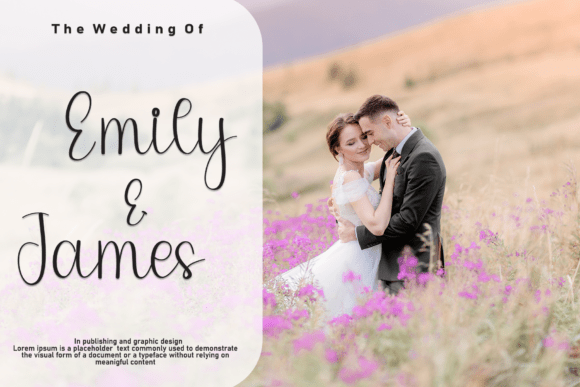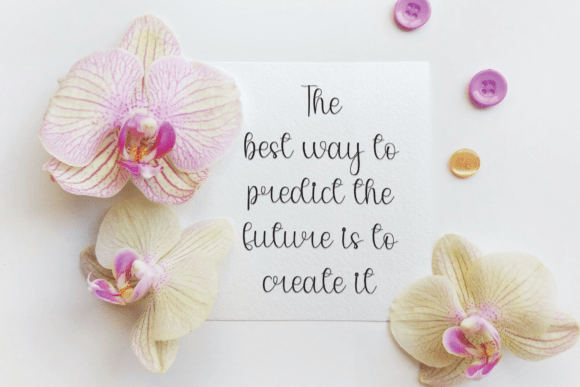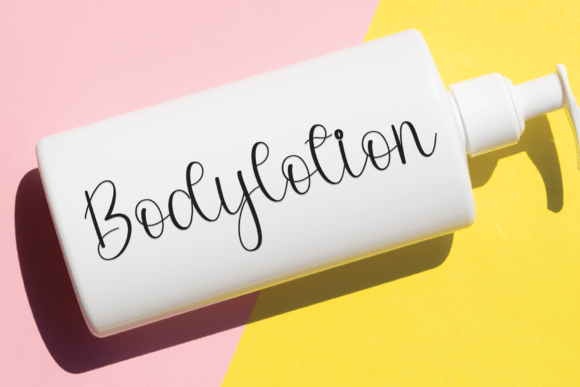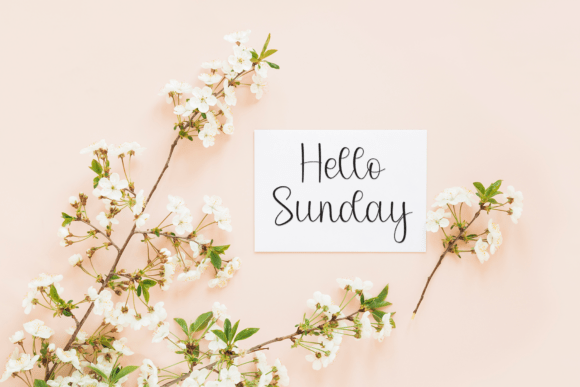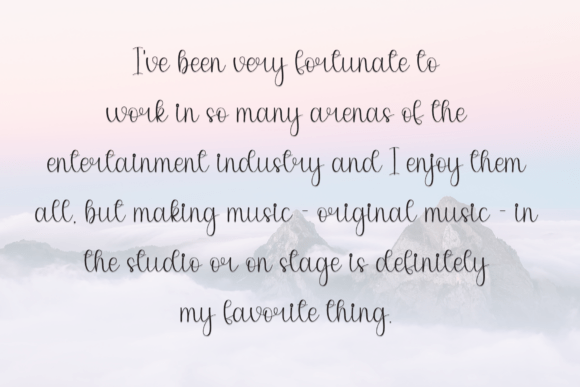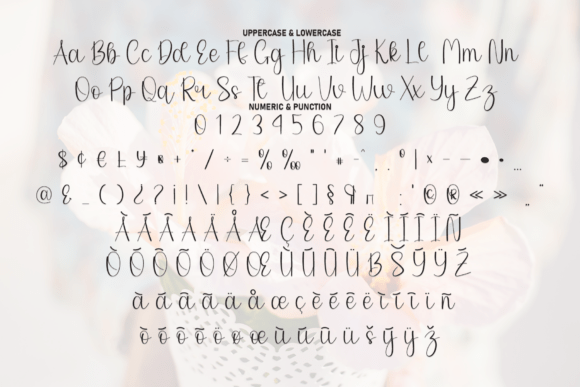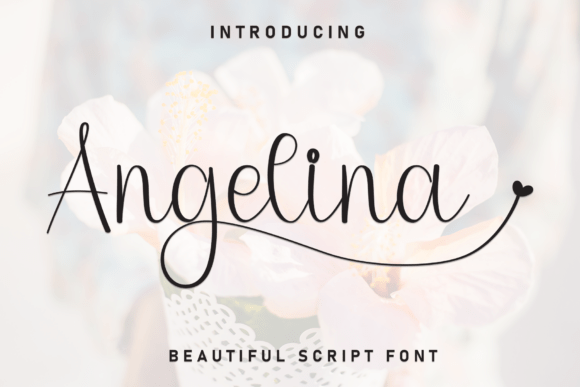
Introducing Angelina Font: Elevate Your Designs with Fresh Elegance and Delicate Charm
Are you searching for a font that embodies the essence of renewal and sophistication? Look no further than Angelina, a stylish handwritten script font that radiates fresh elegance and delicate charm. With its flowing strokes and graceful curves, Angelina is the perfect addition to any design project, from invitations and branding to seasonal designs and more.
The Beauty of Angelina Font
Angelina is more than just a font – it’s an experience. Its elegant, cursive script is reminiscent of handwritten calligraphy, adding a soft, personal touch to any project. The flowing strokes and delicate curves of Angelina evoke a sense of renewal, making it perfect for designs that require a fresh and uplifting feel.
Whether you’re a designer, crafter, or DIY enthusiast, Angelina font is an excellent choice for a variety of projects. Here are just a few ways you can use Angelina to elevate your designs:
- Invitations: Create beautiful, one-of-a-kind invitations for weddings, baby showers, and other special occasions with Angelina font.
- Branding: Add a touch of elegance and sophistication to your brand’s identity with Angelina font, perfect for logos, business cards, and more.
- Seasonal Designs: Use Angelina font to create stunning seasonal designs, such as Christmas cards, Easter eggs, and Halloween decorations.
- Stationery: Create lovely stationery, including notebooks, journals, and greeting cards, with Angelina font.
Key Features of Angelina Font
So, what makes Angelina font so special? Here are some of its key features:
- Handwritten Script: Angelina font features a beautiful, handwritten script that’s perfect for adding a personal touch to your designs.
- Flowing Strokes: The flowing strokes of Angelina font give it a sense of movement and elegance, making it perfect for designs that require a touch of sophistication.
- Graceful Curves: The delicate curves of Angelina font add a touch of whimsy and charm, making it perfect for designs that require a playful feel.
- Elegant and Refined: Angelina font is both elegant and refined, making it perfect for designs that require a high level of sophistication.
Tips for Using Angelina Font
Here are some tips for getting the most out of Angelina font:
- Pair with Bold Fonts: Pair Angelina font with bold, sans-serif fonts for a striking contrast that adds visual interest to your designs.
- Use in Headlines: Use Angelina font in headlines and titles to add a touch of elegance and sophistication to your designs.
- Add Decorative Elements: Add decorative elements, such as flourishes and swashes, to Angelina font to give it an extra touch of whimsy and charm.
- Experiment with Colors: Experiment with different colors and textures to find the perfect combination that complements Angelina font.
In conclusion, Angelina font is a stylish and elegant handwritten script font that’s perfect for designers, crafters, and DIY enthusiasts. With its flowing strokes, delicate curves, and fresh elegance, Angelina font adds a soft, personal touch and uplifting feel to any project. Whether you’re creating invitations, branding, seasonal designs, or more, Angelina font is the perfect choice. So why wait? Download Angelina font today and start elevating your designs with its delicate charm and fresh elegance!